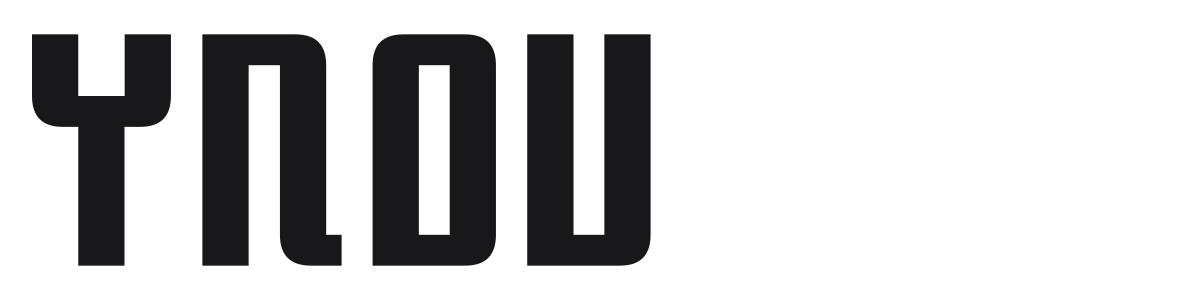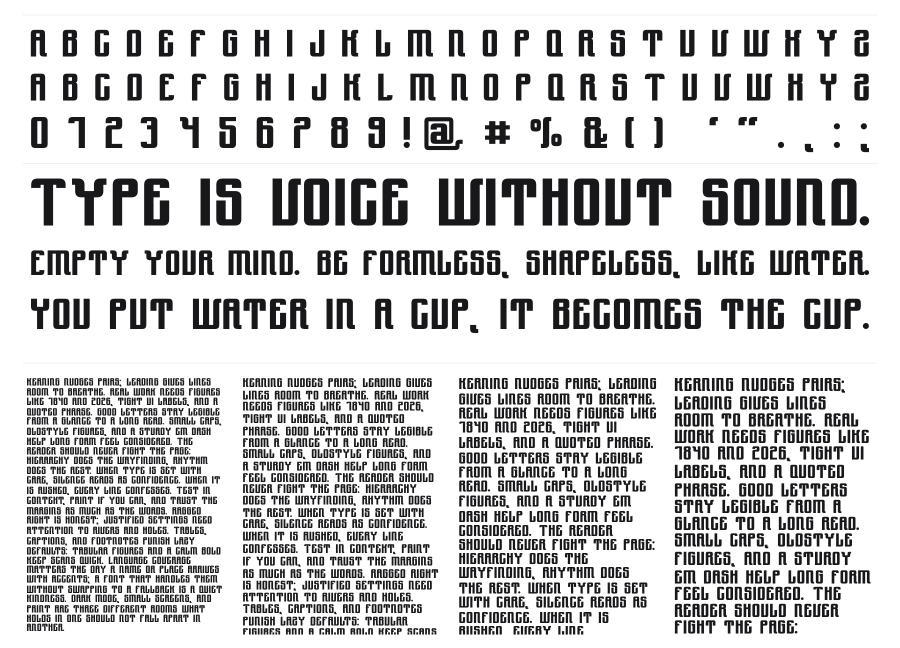
Yndu
Yndu is a heavy geometric display font built from thick modular units with a stark constructivist edge. Every character is assembled from squared, blocky forms with near-zero stroke contrast, creating a dense, mechanical texture at headline sizes. It carries the graphic energy of Soviet-era poster art and 1970s industrial typography.